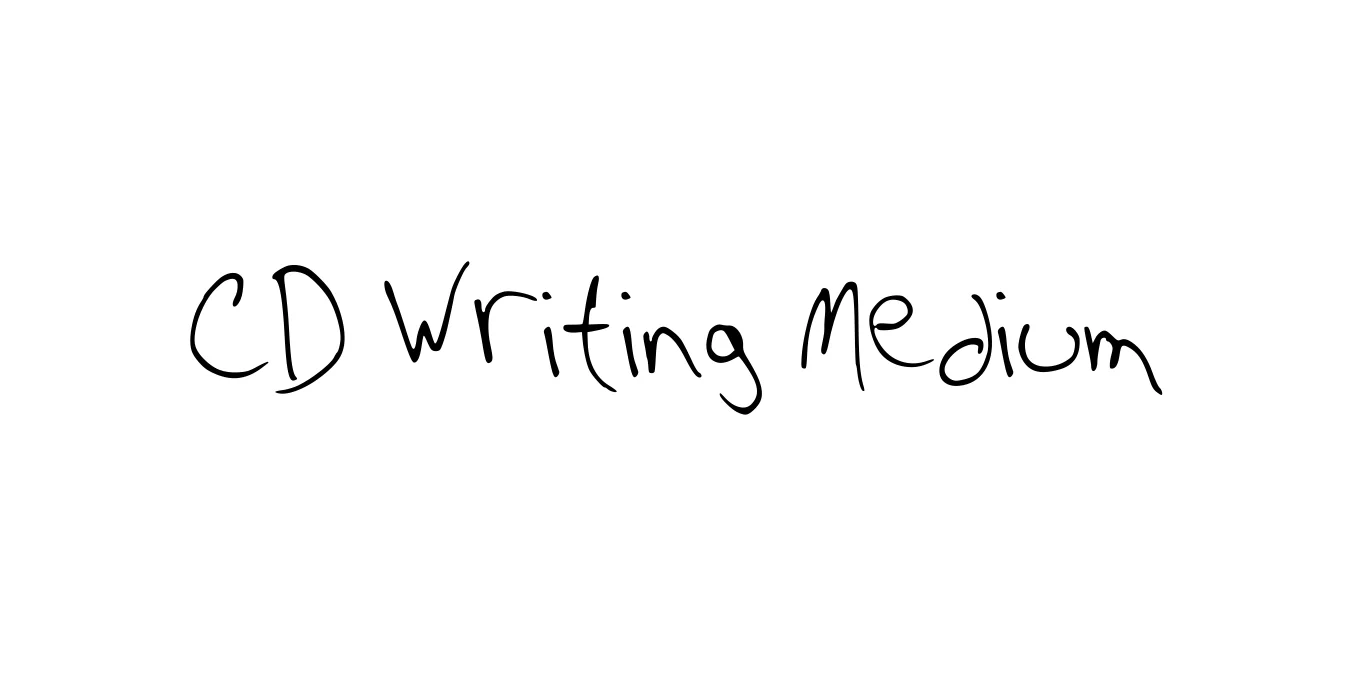
CD Writing Medium
Designed by Creative Design
| Category | Handwriting / Script |
| Designer | Creative Design |
CD Writing Medium is a distinctive handwriting-style typeface designed to replicate the specific aesthetic of a felt-tip permanent marker. It captures the fluid, slightly rounded strokes and consistent pressure typically seen when labeling compact discs, DVDs, or personal archives during the digital media boom. The font features an organic flow that ensures high legibility while maintaining a casual, unrefined charm, making it a staple for projects that require a human touch.
The typeface excels in its ability to evoke nostalgia for the late 1990s and early 2000s, providing a sense of authenticity to digital layouts. Its balanced character spacing and medium weight allow it to work well across various screen resolutions and print formats. Today, CD Writing Medium is frequently utilized in creative scrapbooking, educational materials, and amateur graphic design where a formal serif or sans-serif would feel too rigid.
CD Writing Medium Best Uses
Ideal for creating casual social media graphics and personalized digital invitations.
Perfect for adding a hand-written touch to memory books and digital photo albums.
Great for teachers making worksheets and presentations that feel friendly and approachable.
Useful for note-taking applications or quirky user interfaces that need a personal, hand-drawn vibe.